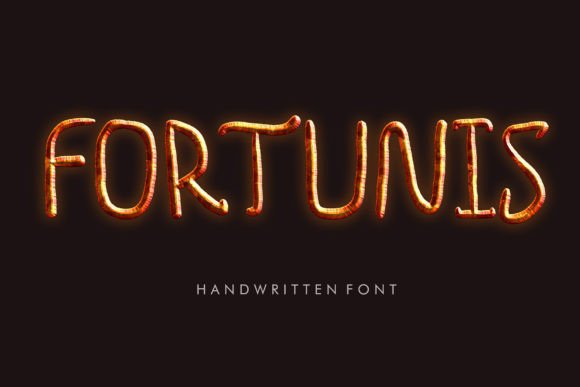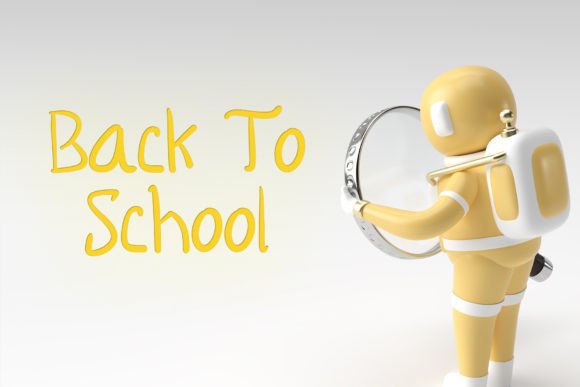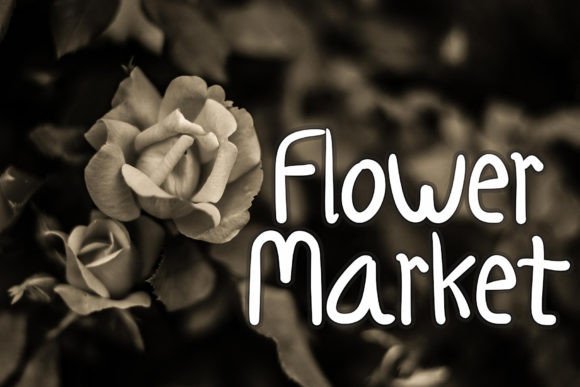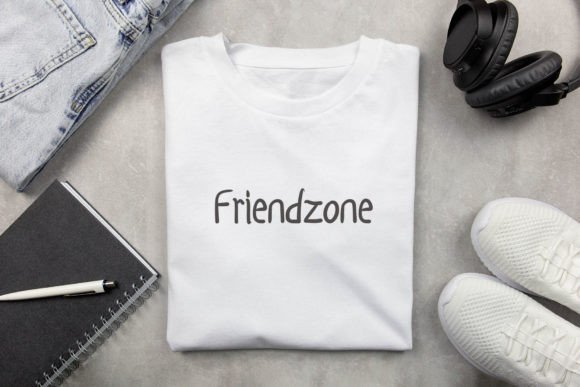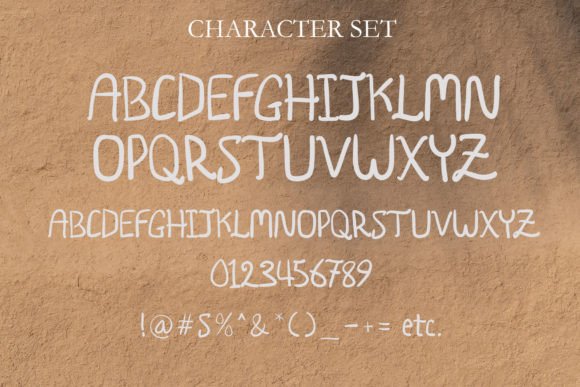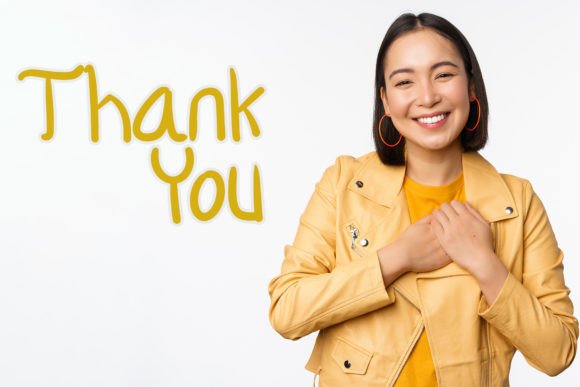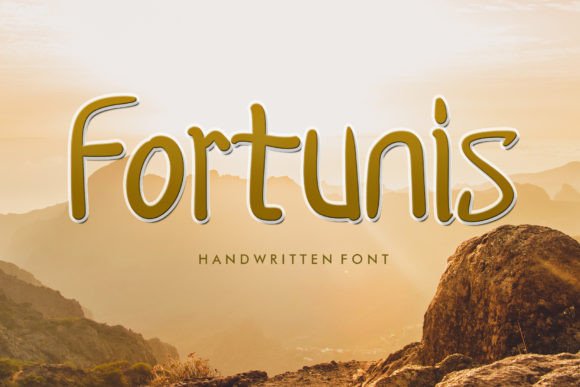
Introducing Fortunis Font: The Ultimate Display Handwritten Font for Designers and Crafters
In the world of typography, a good font can make all the difference in the success of a design project. Whether you’re a professional designer, a crafty DIY enthusiast, or a social media influencer, finding the right font can elevate your work and make it stand out from the crowd. If you’re on the hunt for a versatile and stylish display handwritten font, look no further than Fortunis Font.
What is Fortunis Font?
Fortunis is a beautifully crafted display handwritten font that is perfect for a wide range of design applications. Its unique and elegant style makes it an excellent choice for adding a personal touch to your crafts, digital designs, presentations, and greeting cards. With Fortunis, you can add a dash of sophistication and whimsy to your work, making it perfect for various occasions and celebrations.
Key Features of Fortunis Font
- Handwritten style: Fortunis boasts a beautiful, handwritten style that adds a personal and human touch to your designs.
- Display font: This font is specifically designed to make a statement, making it perfect for headings, titles, and emphasis text.
- Versatile: Fortunis can be used for a wide range of design applications, from digital designs to crafts and presentations.
- Elegant and whimsical: The font’s unique style combines elegance and playfulness, making it perfect for various occasions and celebrations.
Use Cases for Fortunis Font
Fortunis Font is an incredibly versatile font that can be used in various design projects. Here are some use cases to get you started:
- Crafts: Add a personal touch to your DIY crafts, such as handmade cards, scrapbooking, and journaling.
- Digital design: Use Fortunis in your digital designs, including social media graphics, blog posts, and website headers.
- Presentations: Make your presentations stand out with Fortunis, perfect for titles, headings, and emphasis text.
- Greeting cards: Create beautiful and unique greeting cards for special occasions, such as birthdays, weddings, and holidays.
Why Choose Fortunis Font?
With so many fonts available, why choose Fortunis? Here are a few reasons why Fortunis Font stands out:
- Unique style: Fortunis boasts a unique and elegant handwritten style that will set your designs apart.
- Easy to read: Despite its decorative nature, Fortunis is surprisingly easy to read, making it perfect for body text and captions.
- High-quality: Fortunis is a high-quality font that is designed to deliver exceptional results in various design applications.
Tips for Using Fortunis Font
To get the most out of Fortunis Font, here are some tips to keep in mind:
- Experiment with sizes: Fortunis looks great in various sizes, so don’t be afraid to experiment to find the perfect size for your design.
- Pair with other fonts: Fortunis pairs well with other fonts, so try combining it with a sans-serif font for added contrast.
- Use it sparingly: As a display font, Fortunis is best used sparingly to add emphasis and create visual interest.